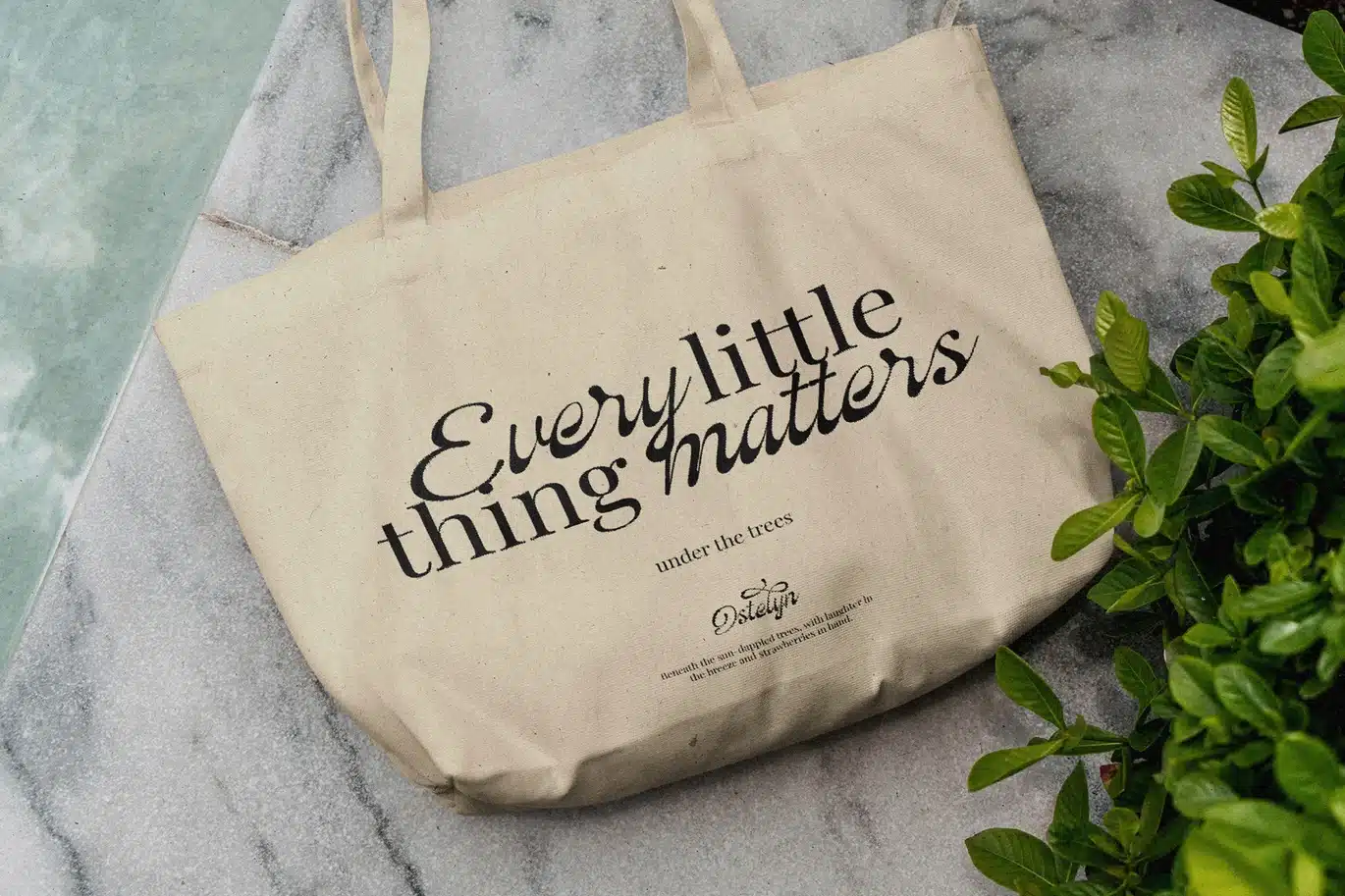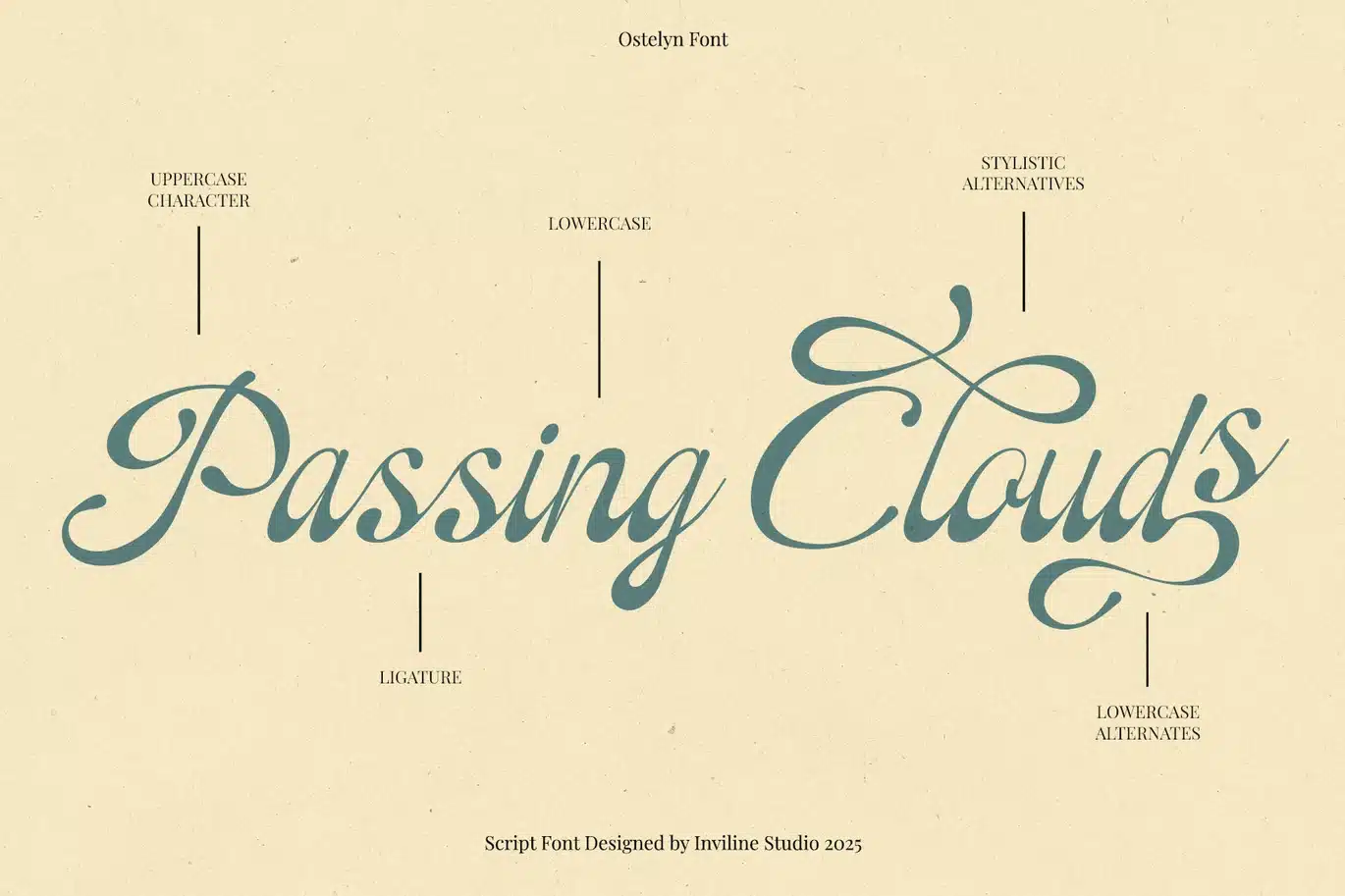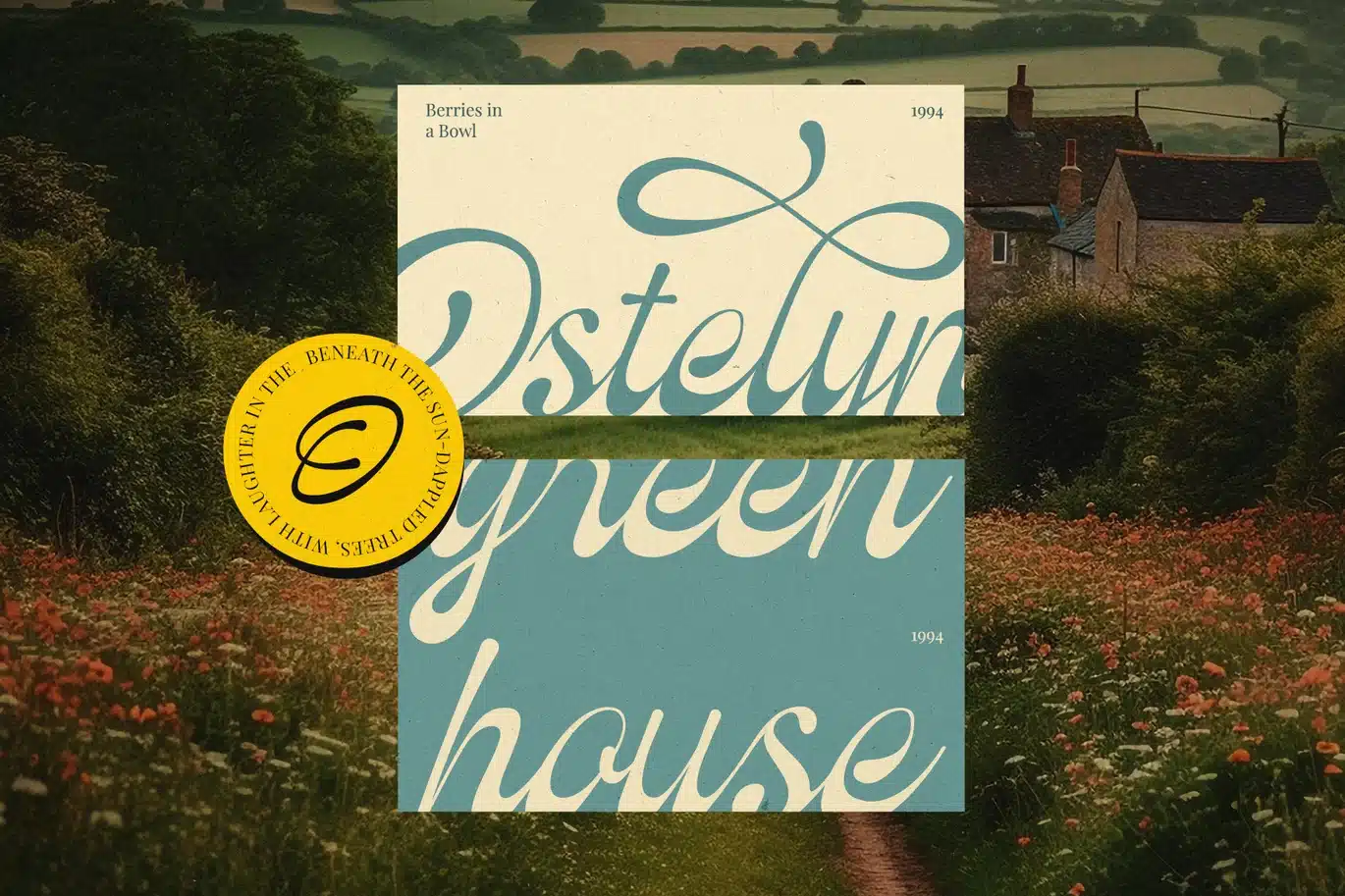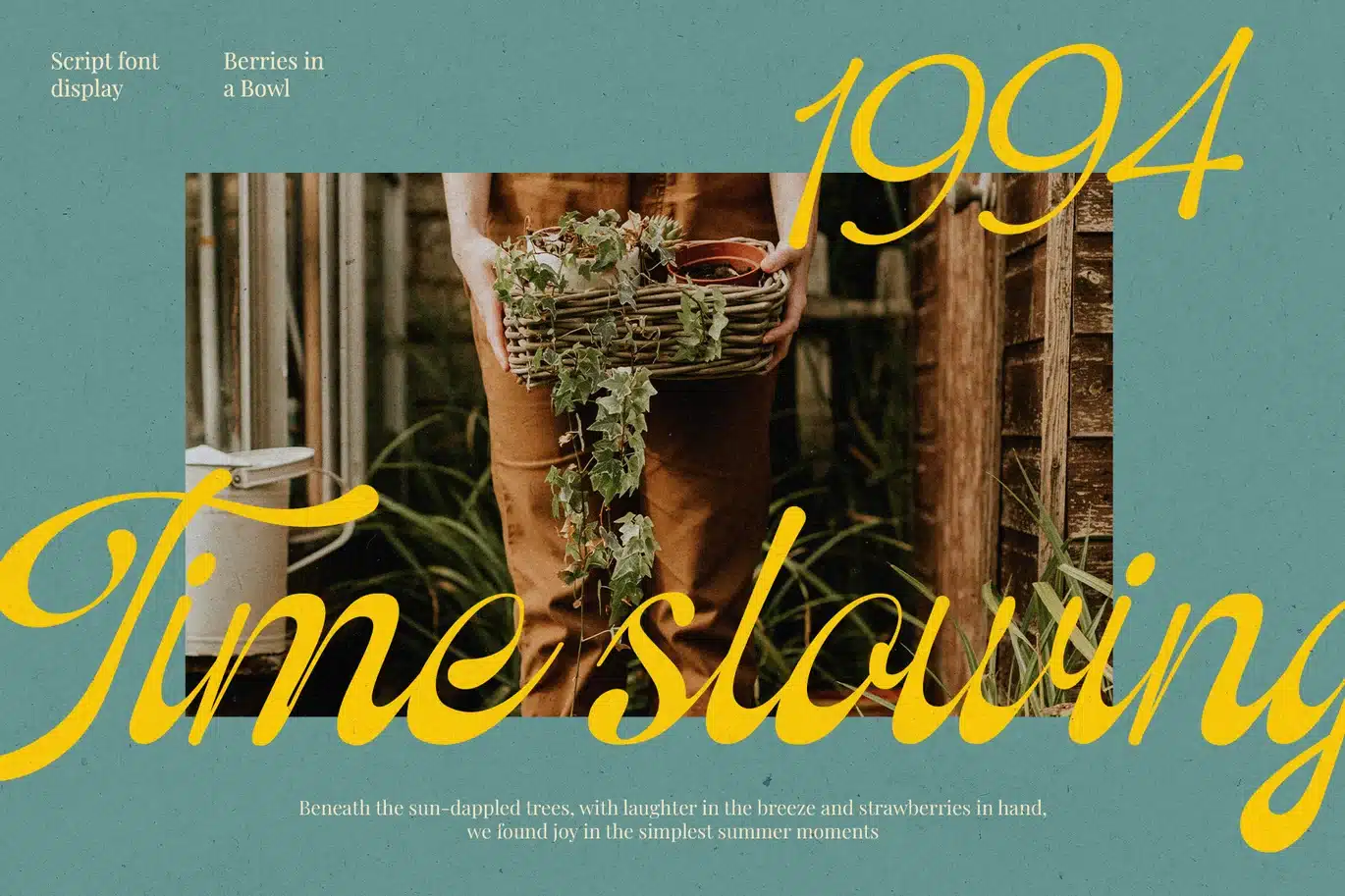
Ostelyn – Elegant Script Font for Branding
Ostelyn is a hand-drawn script display font with flowing strokes, soft contrast, and refined swash details. The preview shows elegant curves, looping capitals, and a romantic handwritten feel that reads clearly at larger sizes.
In the preview, Ostelyn appears in branding-style wordmarks, packaging labels, product tags, and editorial-style headlines. Example phrases include “Ostelyn,” “Luminous,” “Romanticize your life,” “Passing Clouds,” “Time slowing,” and “Every little thing matters,” showing how the font is used for expressive titles and signature-style text.
The preview also states Ostelyn includes three styles—regular, slant, and slant extra and supports OpenType features such as stylistic alternates and ligatures (e.g., st, ct, et, tt). It includes uppercase and lowercase letters, numerals, punctuation, and multilingual support, as shown in the character pages.